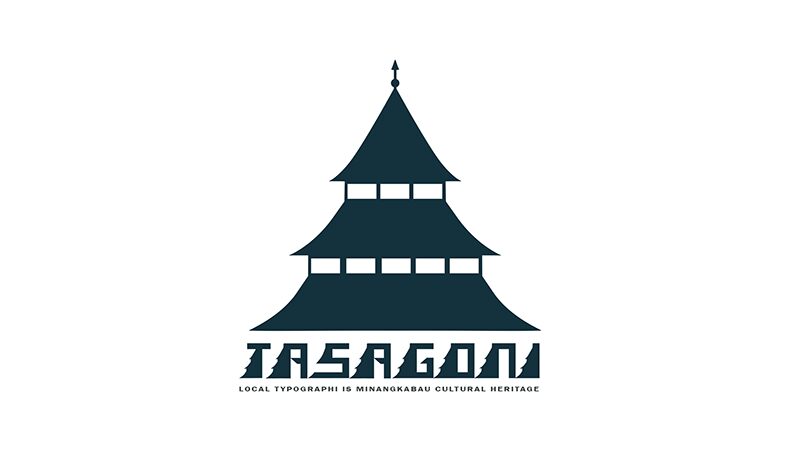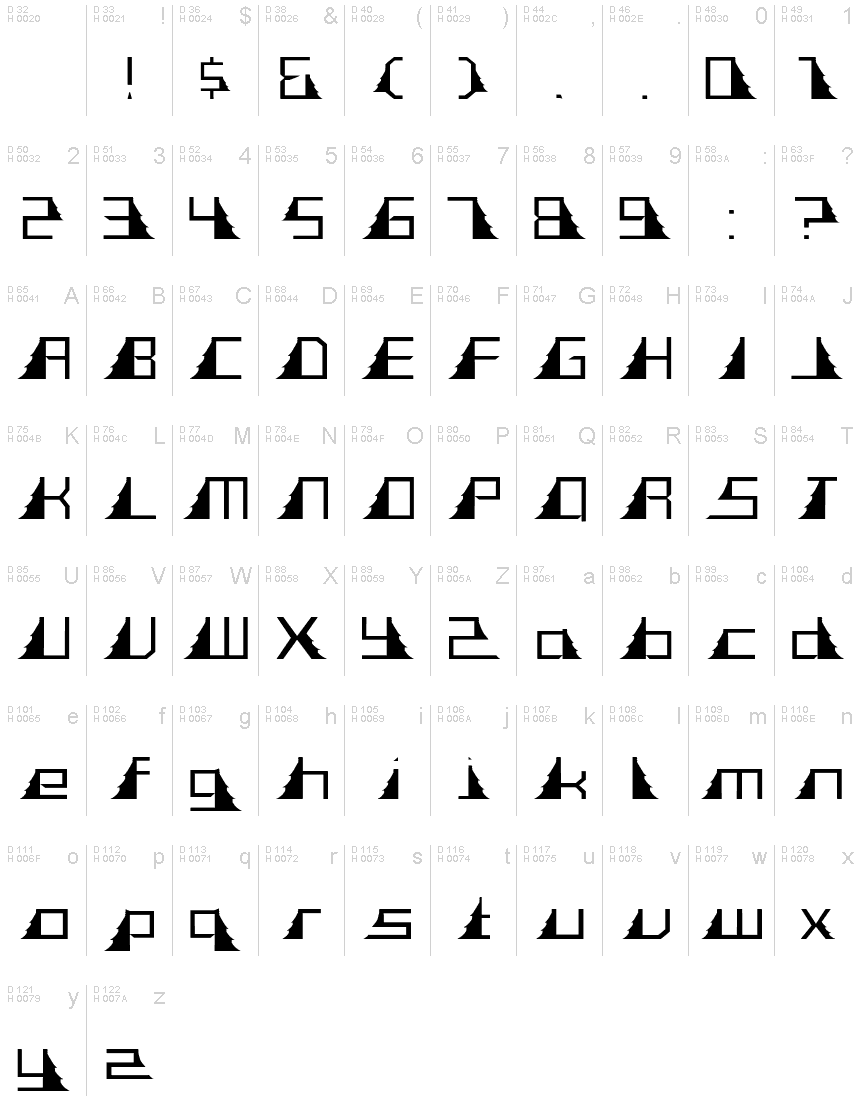
TASAGONI REGULER
TASAGONI is a bold and decorative Japanese-style display font designed by Nirma Indah. Perfect for adding an eye-catching touch to logos, invitations, posters, headlines and more. Create captivating projects with this unique font!